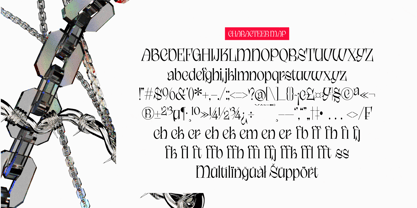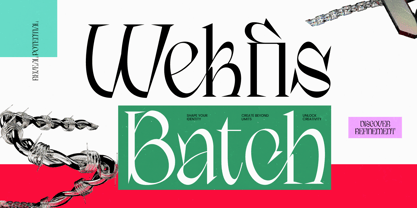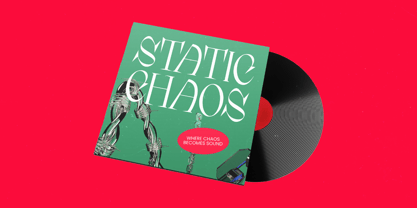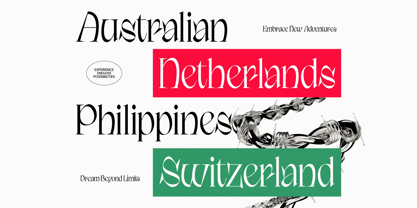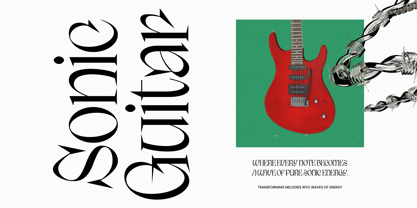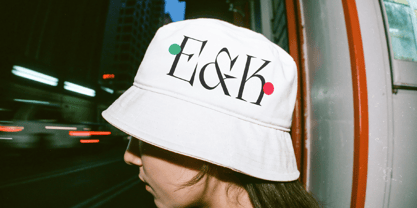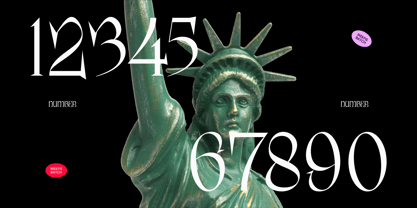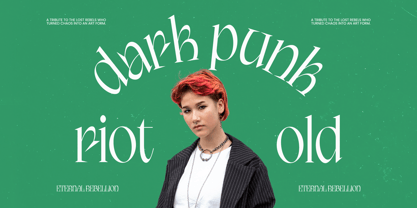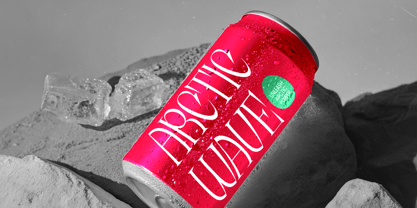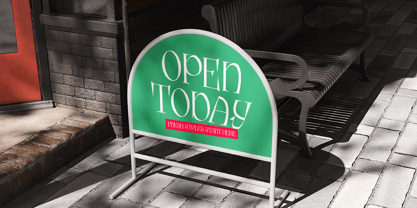
Wekfis Batch
by Timelesstype Studio
The Wekfis Batch Font Family was designed by Heru Utama Putra and published by Timelesstype Studio. Wekfis Batch contains 2 styles and family package options. More about this family
Redefine modern elegance with a typeface that bridges the gap between classic refinement and contemporary edge. Wekfis Batch - Display Serif Typeface is a masterclass in high-contrast design, offering sharp, sophisticated serifs that command immediate attention on any canvas. Its visual impact is striking, making it an essential tool for designers seeking to infuse their work with a sense of contemporary luxury and unmatched poise through a unique 354 glyph character set.